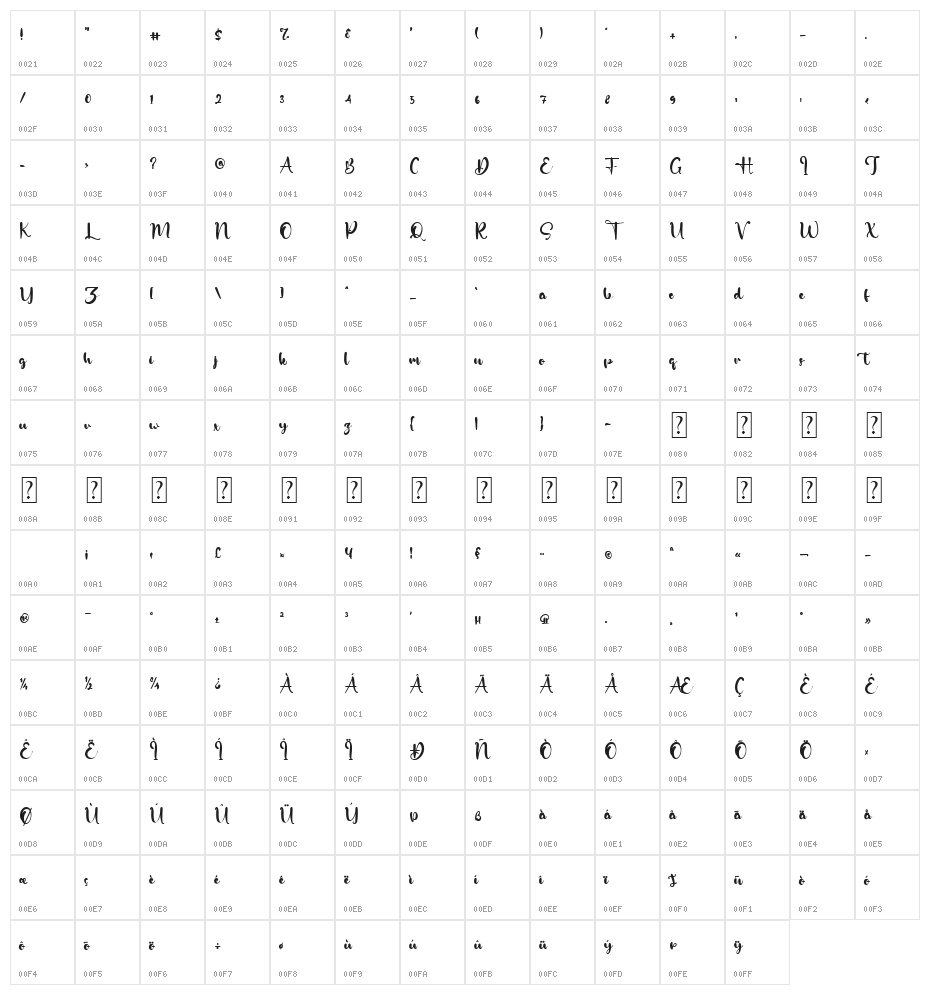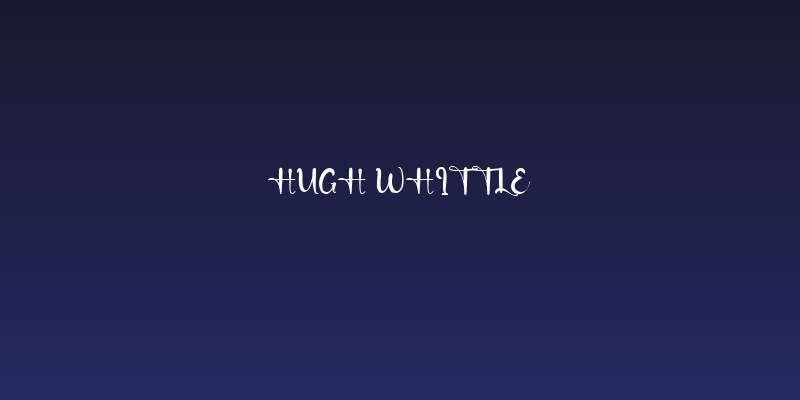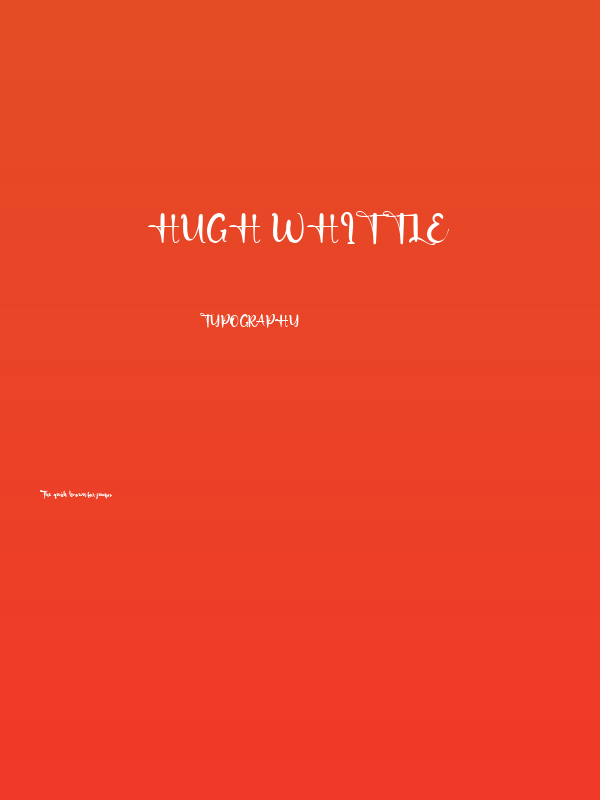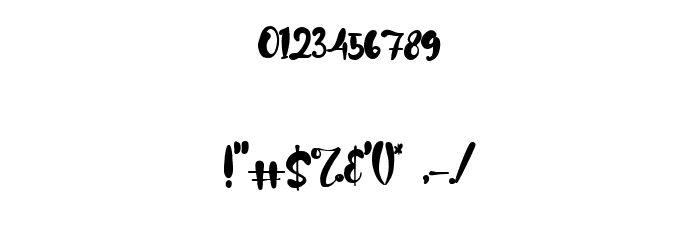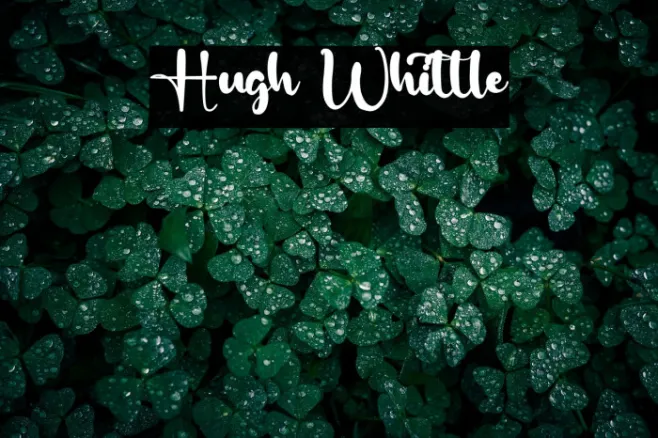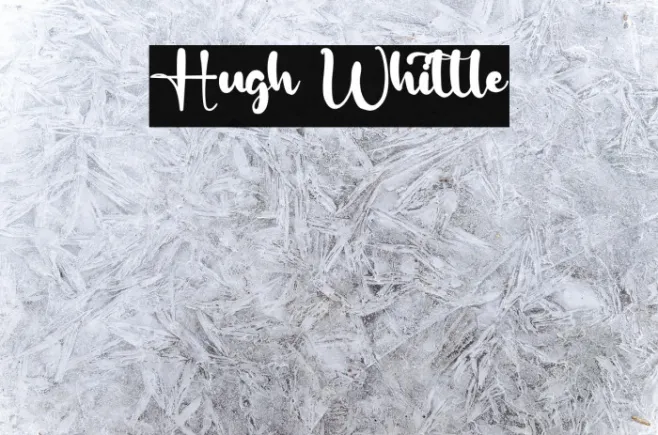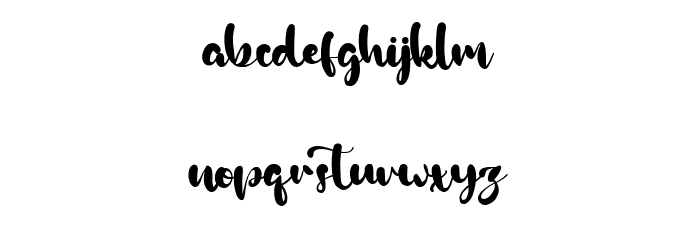
Hugh Whittle Font
Hugh Whittle Description
This font exudes a playful and artistic flair, characterized by its flowing, cursive style. The uppercase letters are bold and dynamic, with sweeping curves and loops that give a sense of movement and elegance. The lowercase letters maintain this fluidity, offering a harmonious blend of thick and thin strokes that add to its decorative appeal. Numbers and special characters are crafted with the same attention to detail, ensuring consistency across all elements. This font is perfect for projects that require a touch of creativity and sophistication, making it ideal for invitations, branding, and artistic endeavors.